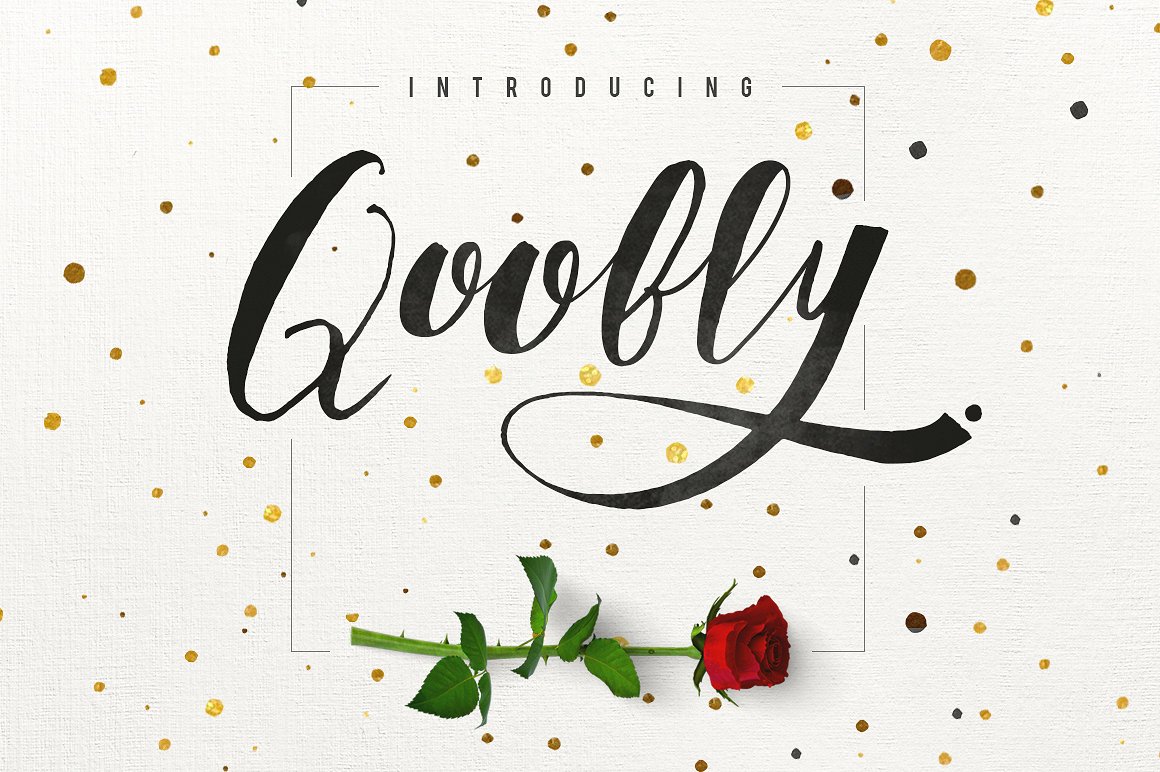
Qoobly Typeface
Give your designs an authentic brush handcrafted feel. “Qoobly Typeface” is perfectly suited to stationery, logos and much more.
| Classification: | Calligraphy Fonts, Handwritten Fonts, Script Fonts |